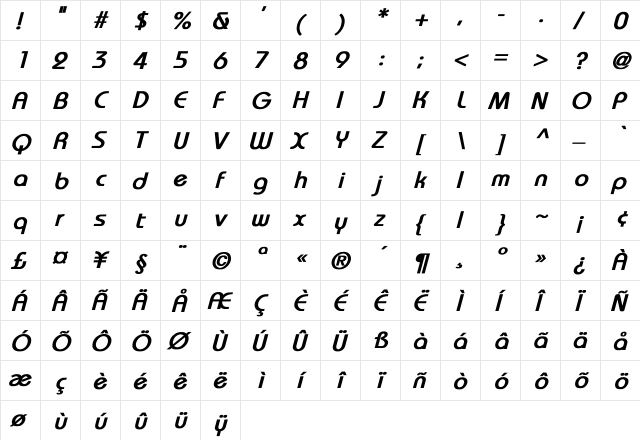
Steff Italic Regular
Steff Italic is a composed and adaptable typeface that performs quietly and consistently across a wide range of design contexts. The slanted form adds forward momentum and visual energy.